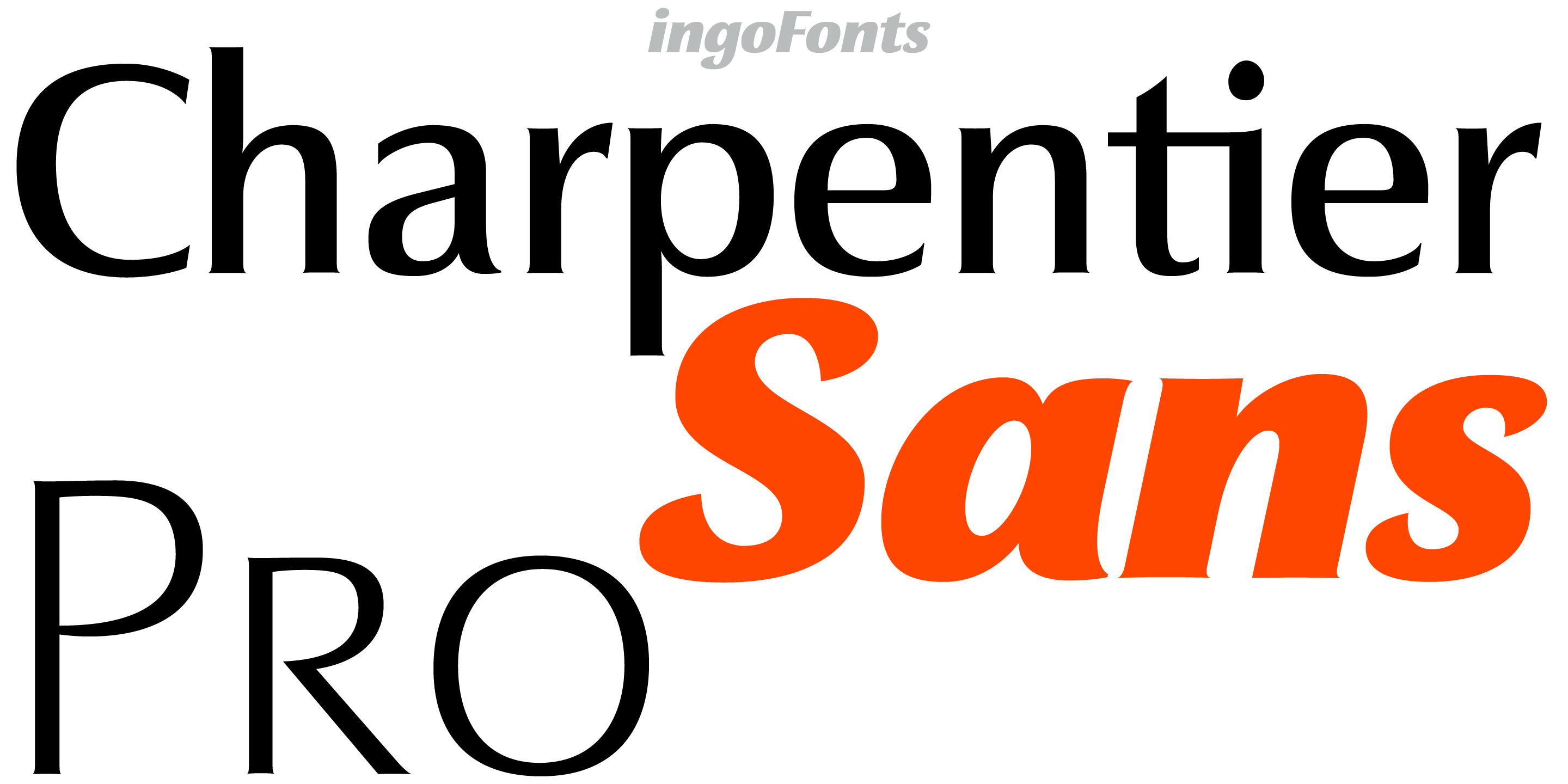
Charpentier Sans Pro Font is ideal for architectural firm branding, construction company materials, professional engineering presentations, building contractor communications, urban planning documents, structural design portfolios, industrial manufacturing graphics, technical blueprint layouts, modern infrastructure projects, and sophisticated construction industry marketing. This robust typeface excels in applications where structural integrity and professional craftsmanship need to be communicated with architectural precision and engineering excellence that builds trust and confidence.
What makes Charpentier Sans Pro Font exciting is its extraordinary ability to embody the precision and reliability of master craftsmanship through its structurally sound letterforms that reflect the meticulous attention to detail required in professional construction and architectural work. The font captures the essence of architectural excellence with its balanced construction and engineered proportions that suggest the stability of well-built foundations and the elegance of thoughtful design. Its carefully crafted character details and professional personality create an atmosphere of technical competence that resonates with architects, engineers, and construction professionals who value precision and quality workmanship.
The Charpentier Sans Pro Font family encompasses a comprehensive range including Thin, Light, Regular, Medium, Semi Bold, Bold, and Black weights. Each weight features corresponding Italic styles, creating a versatile 14-style collection. The family also includes extended character sets with technical symbols, architectural notation support, and specialized construction industry characters designed for professional documentation and technical communication requirements.
Whether you're developing architectural brand identities, construction project materials, or engineering communications, Charpentier Sans Pro Font Free Download delivers the perfect structural foundation your building-focused projects deserve. Its architectural character and professional styling make it an invaluable asset for construction companies, architectural firms, and engineering consultancies working in building design, infrastructure development, and construction services sectors where technical credibility and structural reliability are essential for establishing trust with clients and stakeholders.